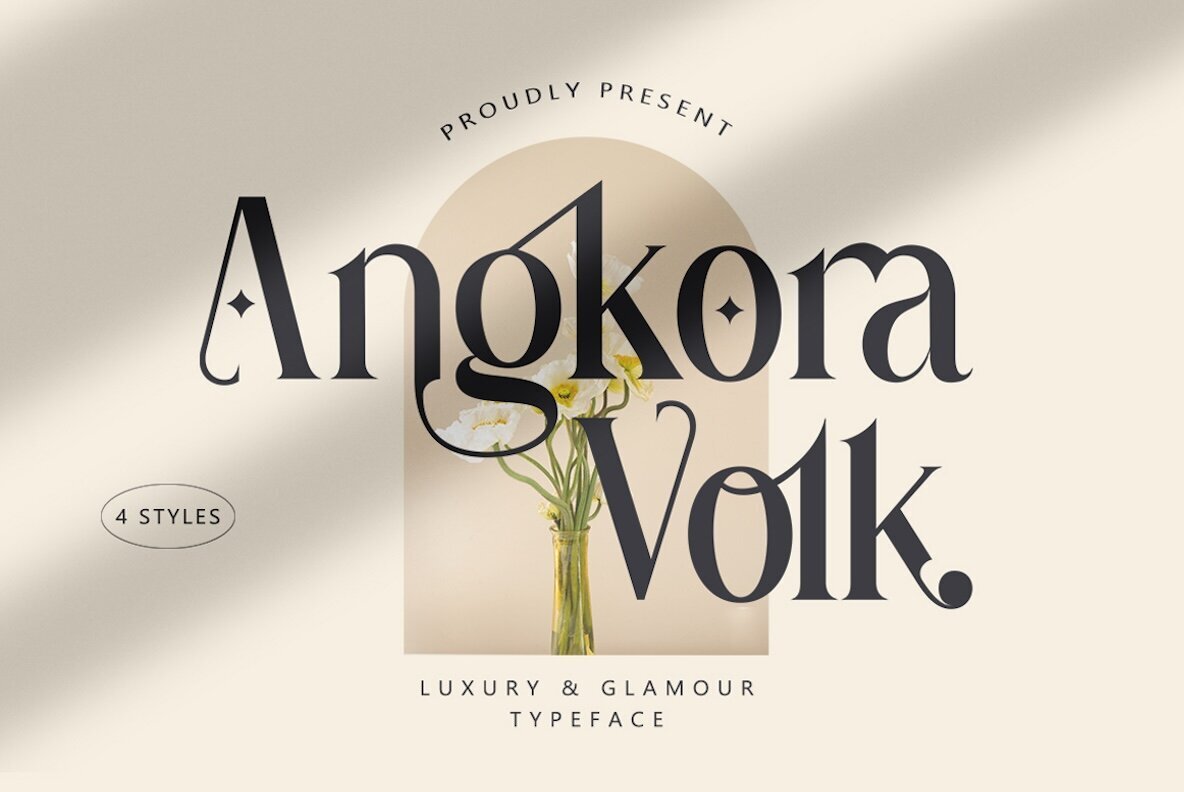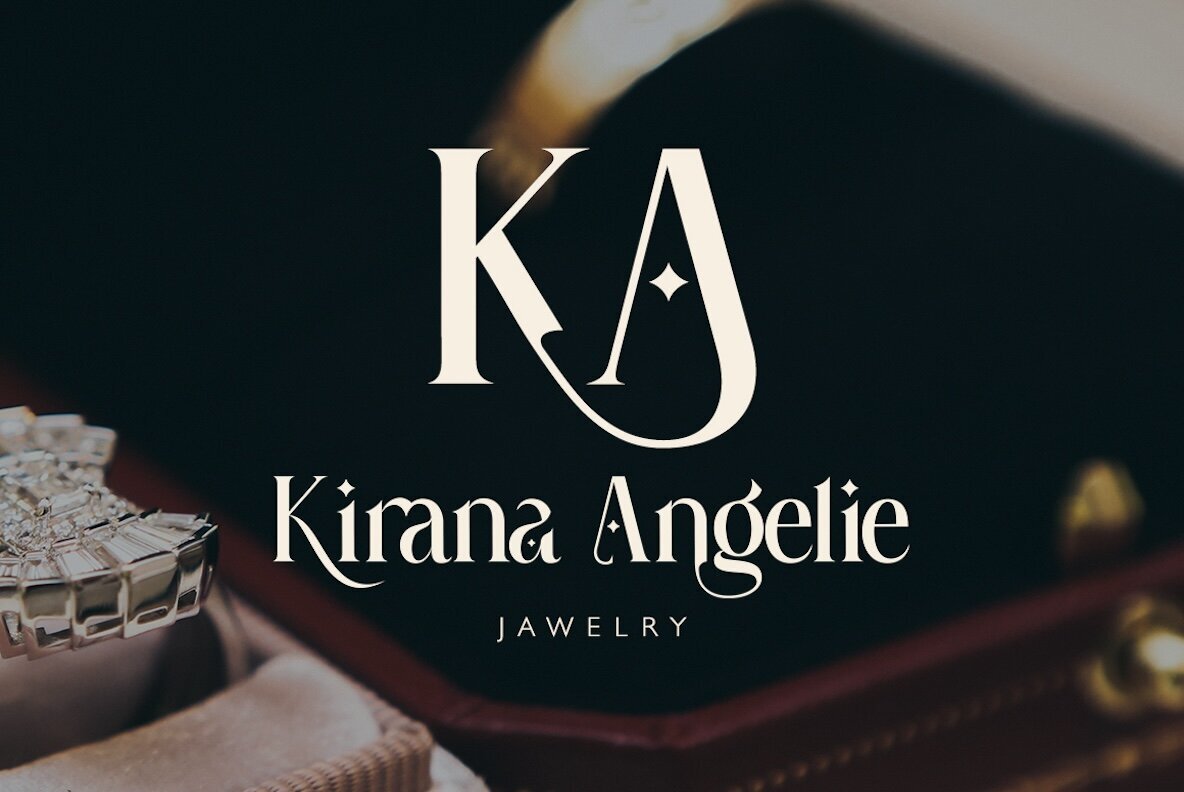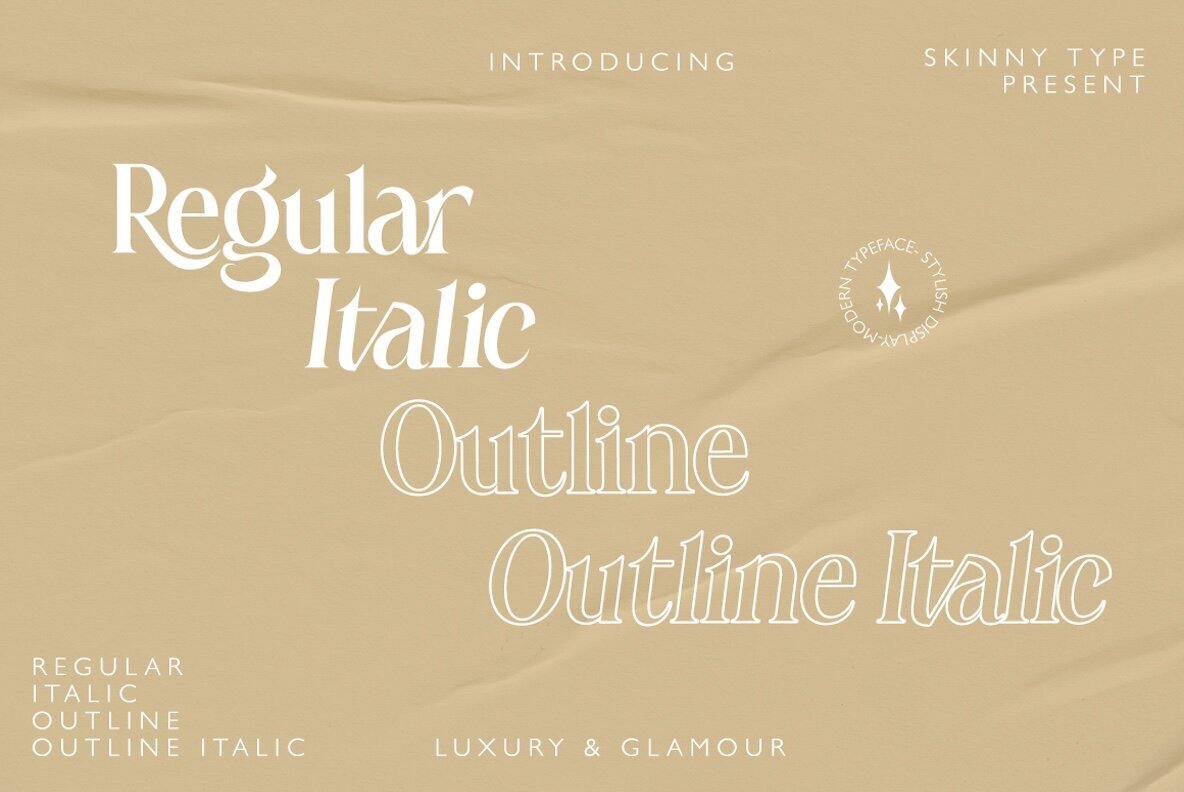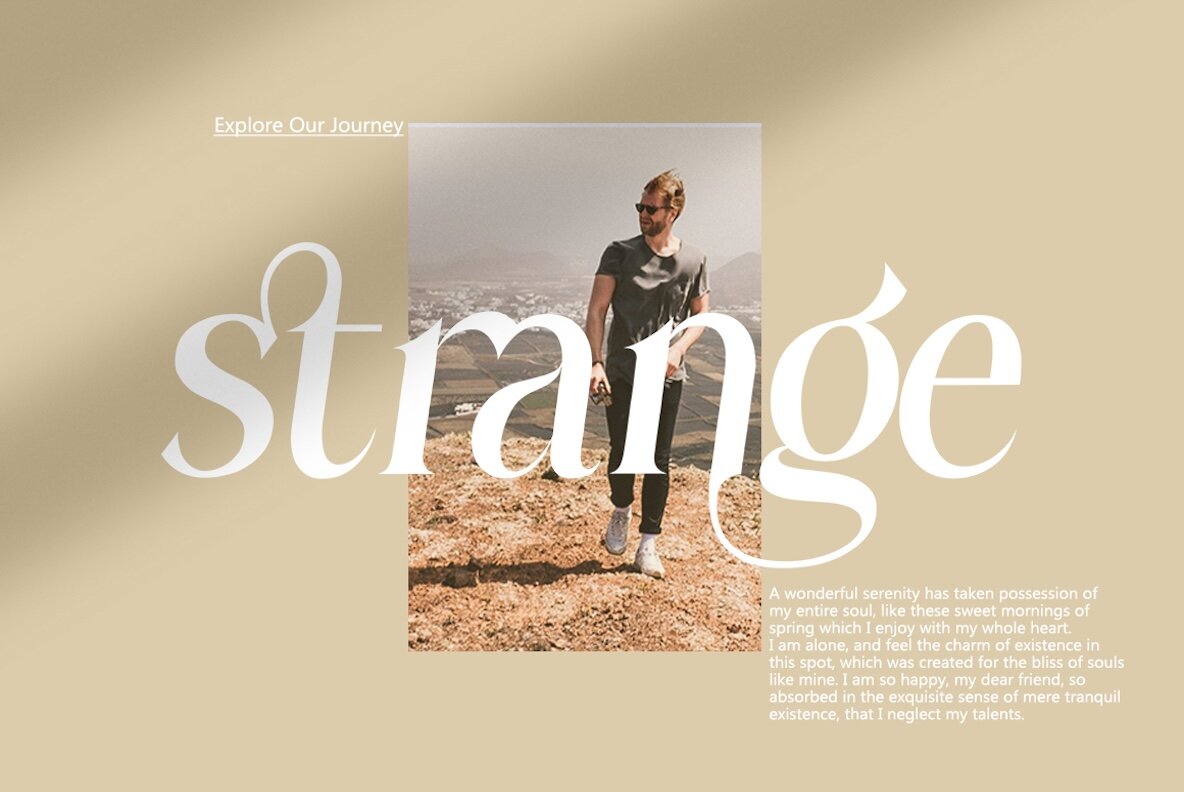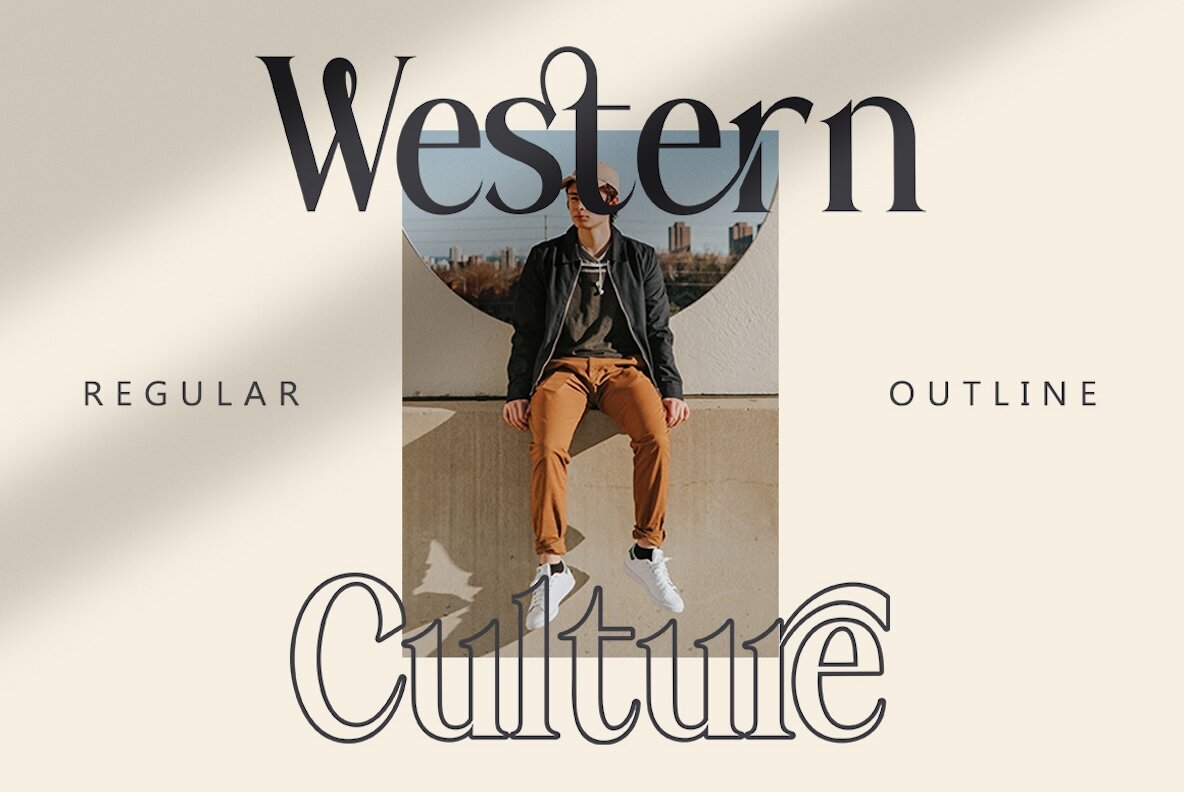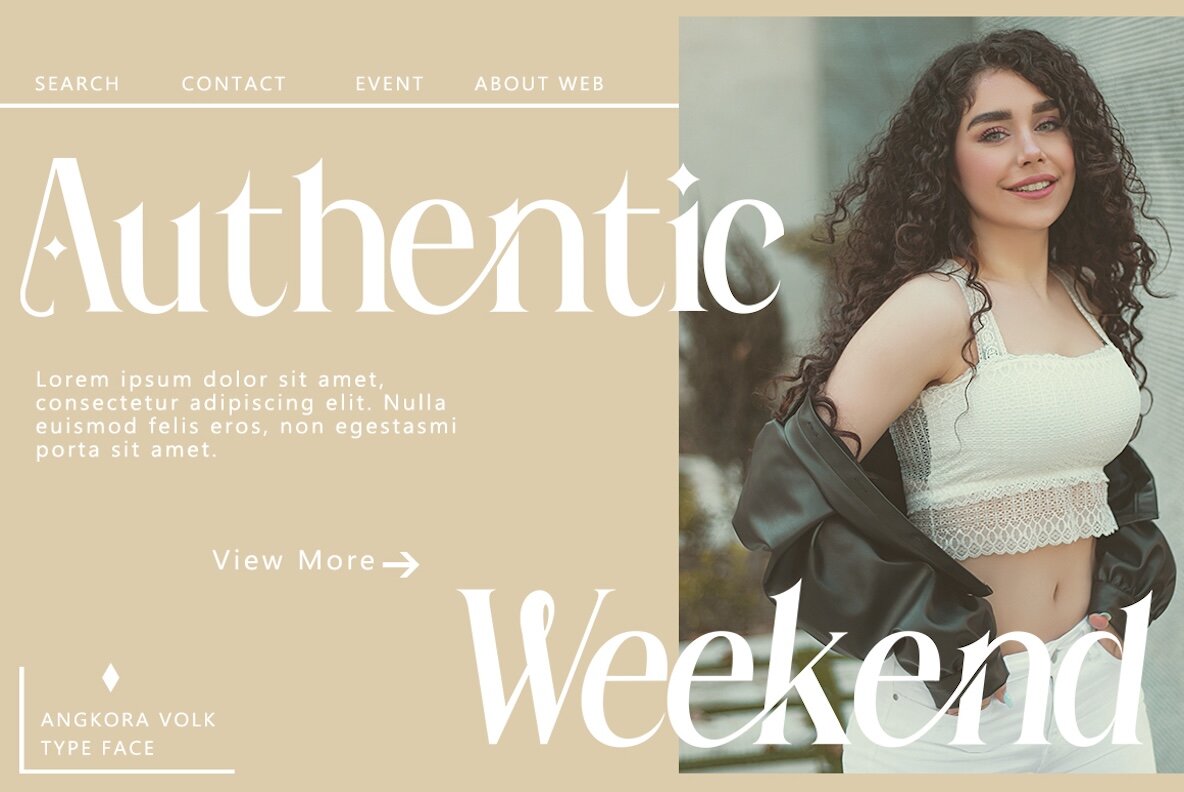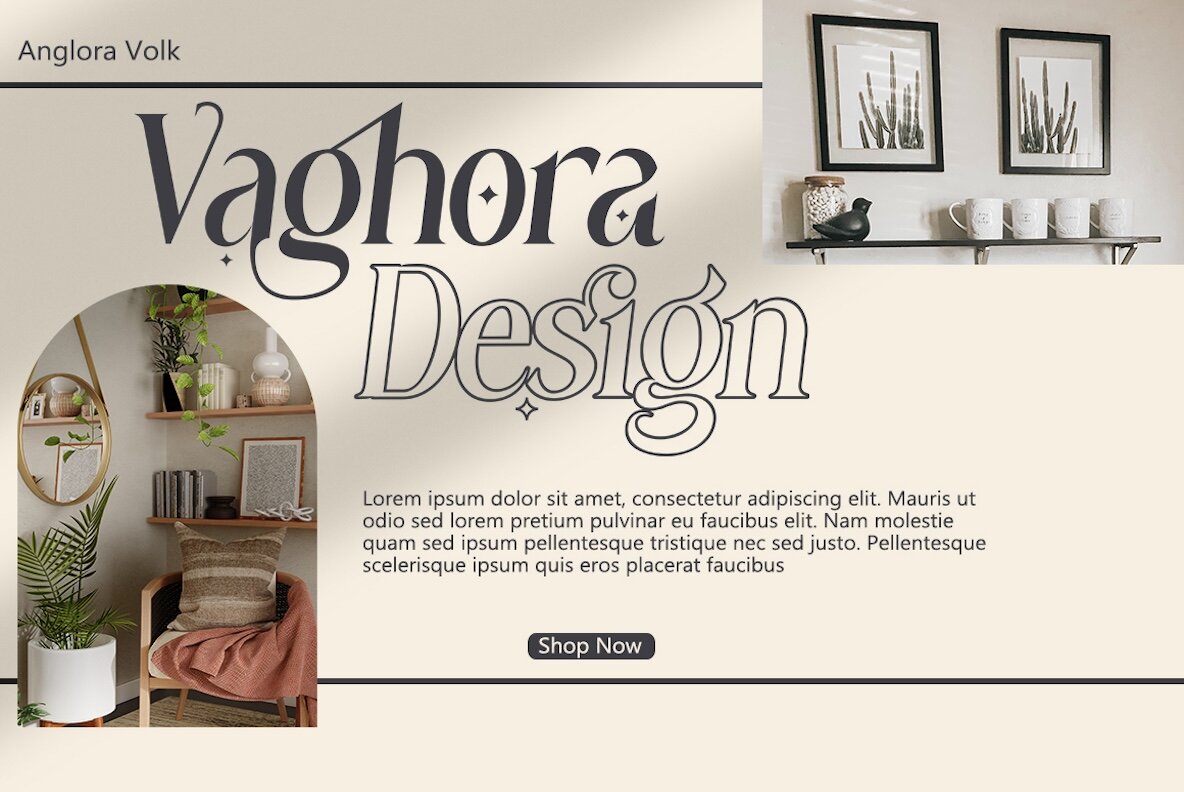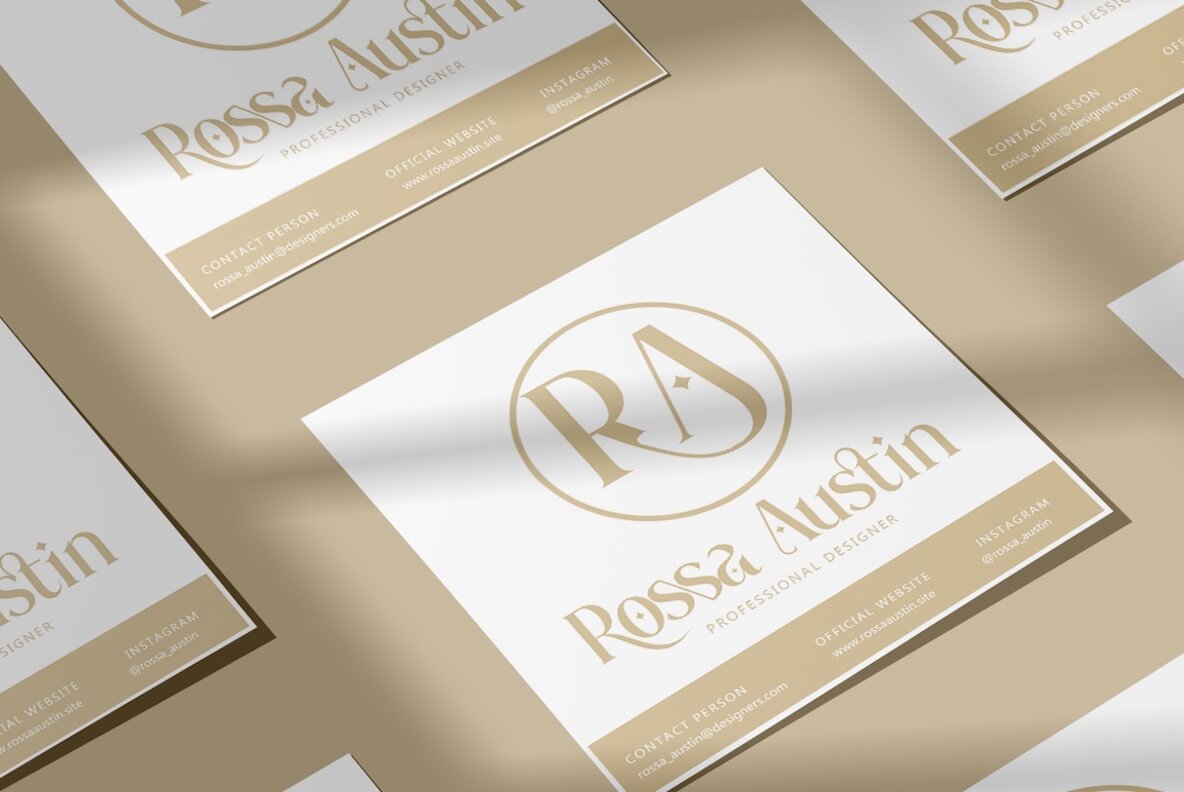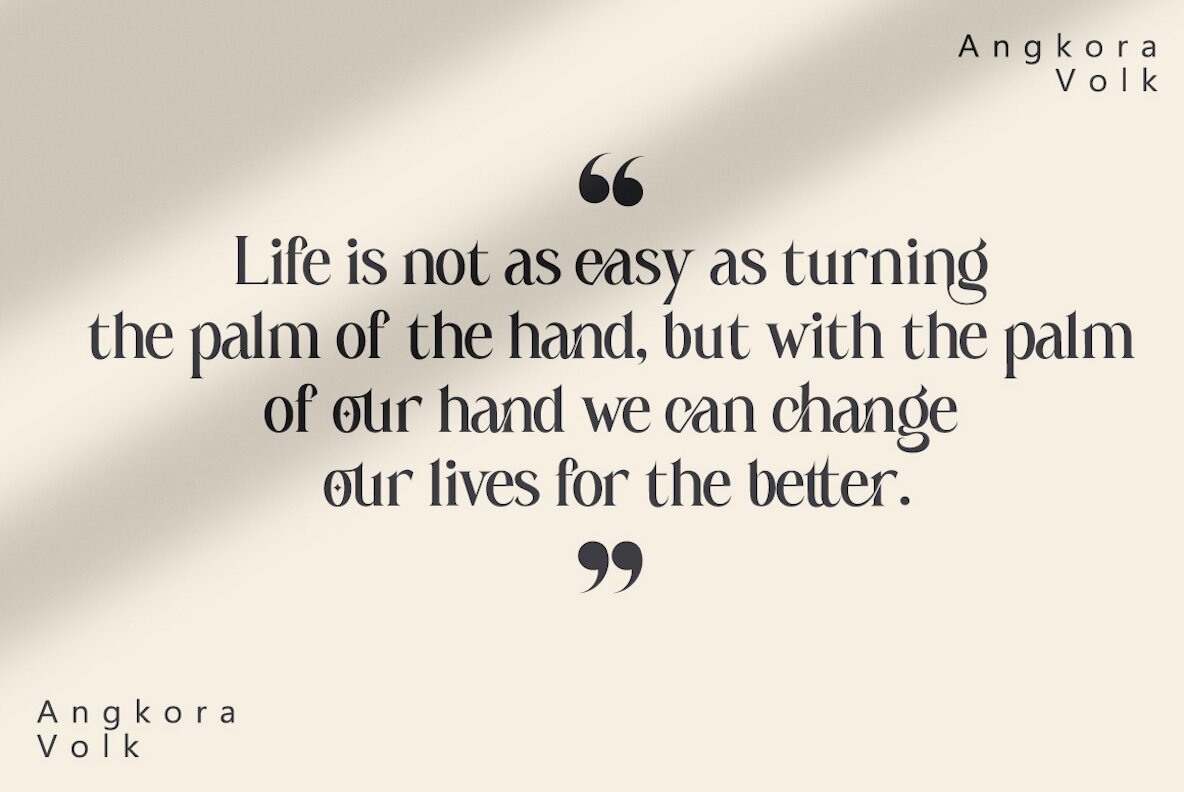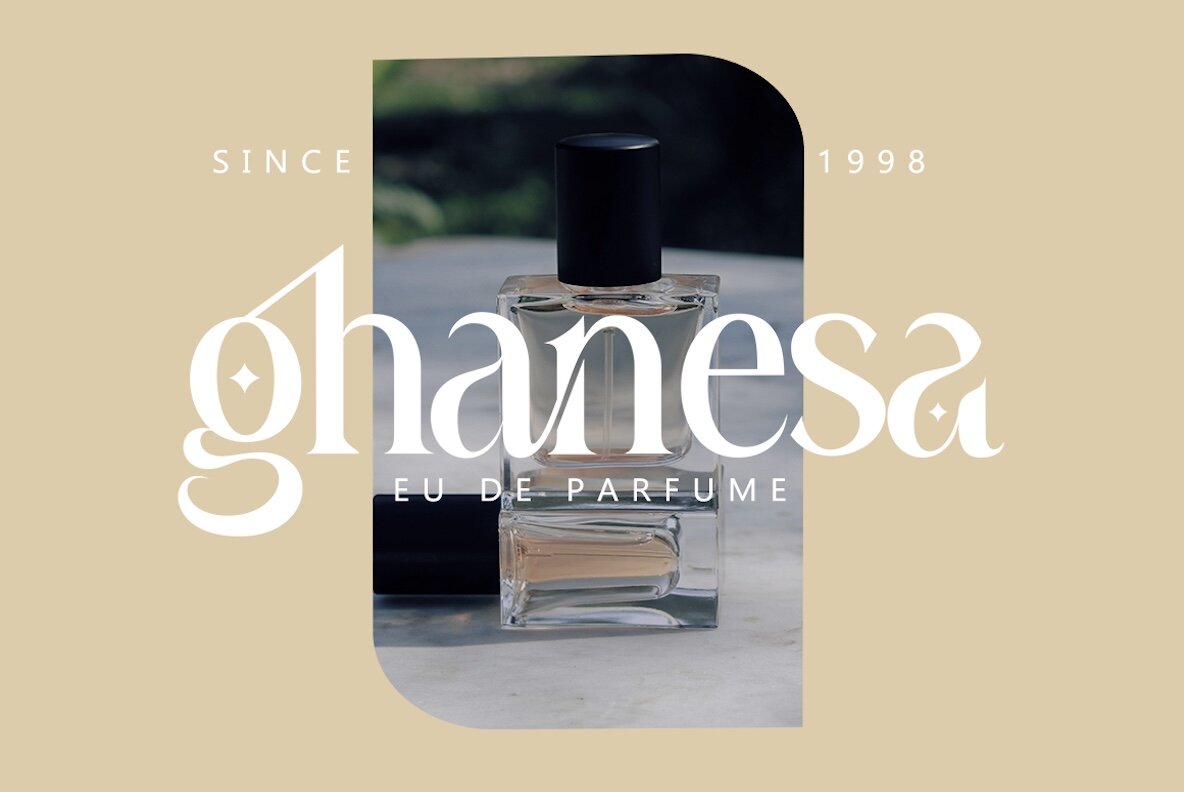
Angkora Volk Font
Angkora Volk Regular
Angkora Volk Italic
Angkora Volk Italic Outline
Angkora Volk Outline
Angkora Volk is a contemporary serif typeface that effortlessly merges modern elegance with a handcrafted aesthetic. Its smooth edges contribute to a refined yet approachable appearance, making it ideal for a wide array of design projects. Whether you're embarking on a branding venture or creating business stationery, Angkora Volk offers a clean and minimalist style that enhances your project's sophistication. Perfect for those who appreciate a beautiful and timeless design, Angkora Volk helps your creative projects stand out with grace and clarity. Enjoy the seamless blend of style and functionality it brings to any endeavor.Angkora Volk Typeface